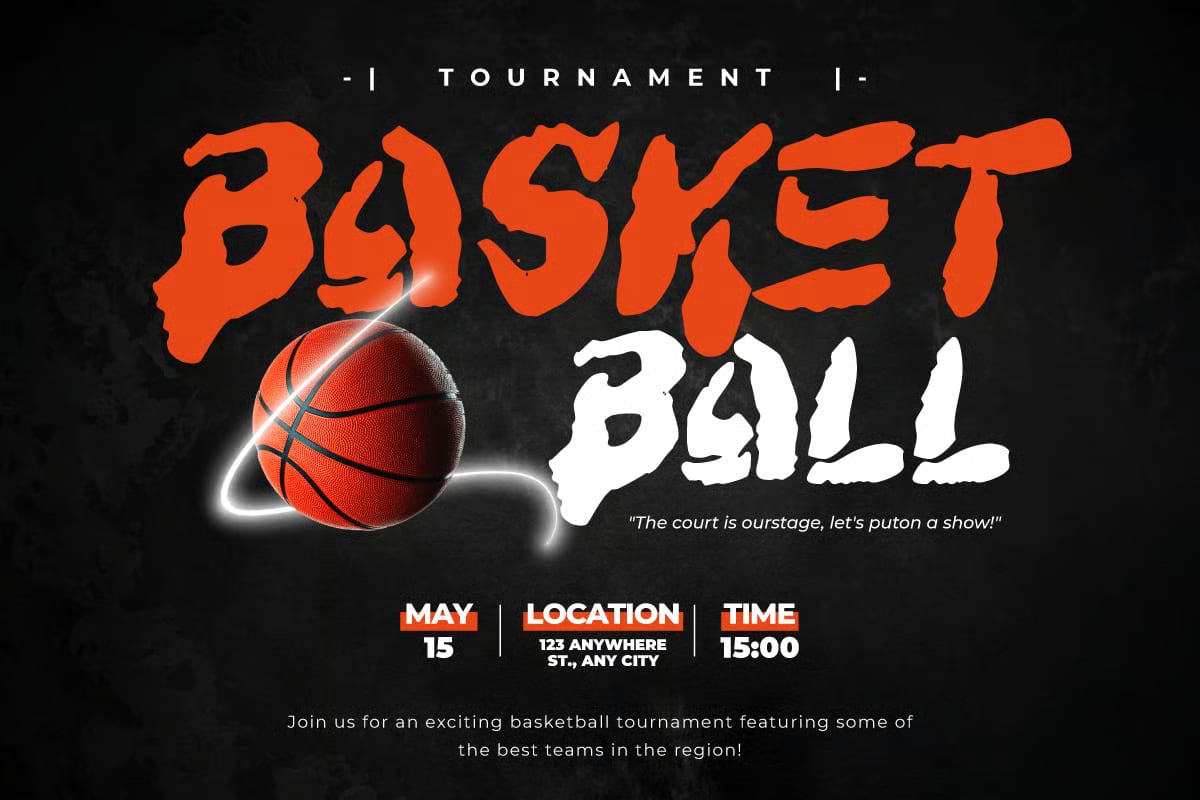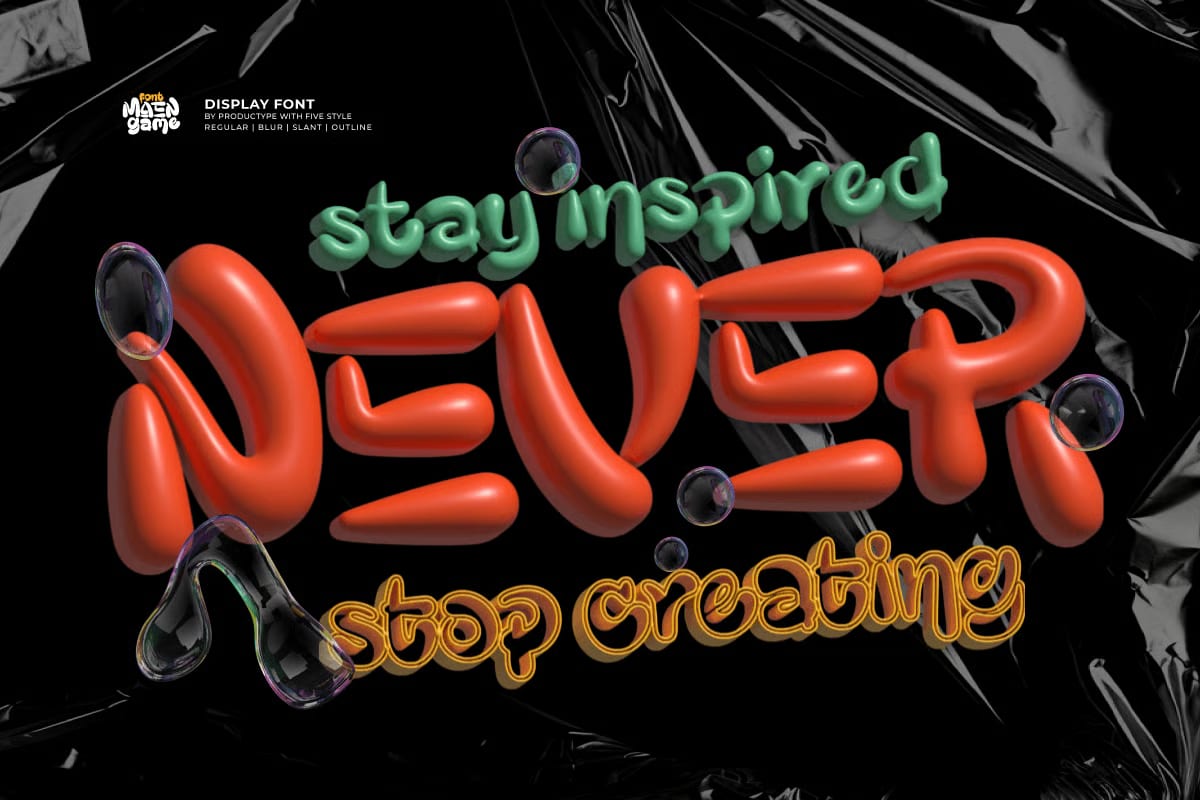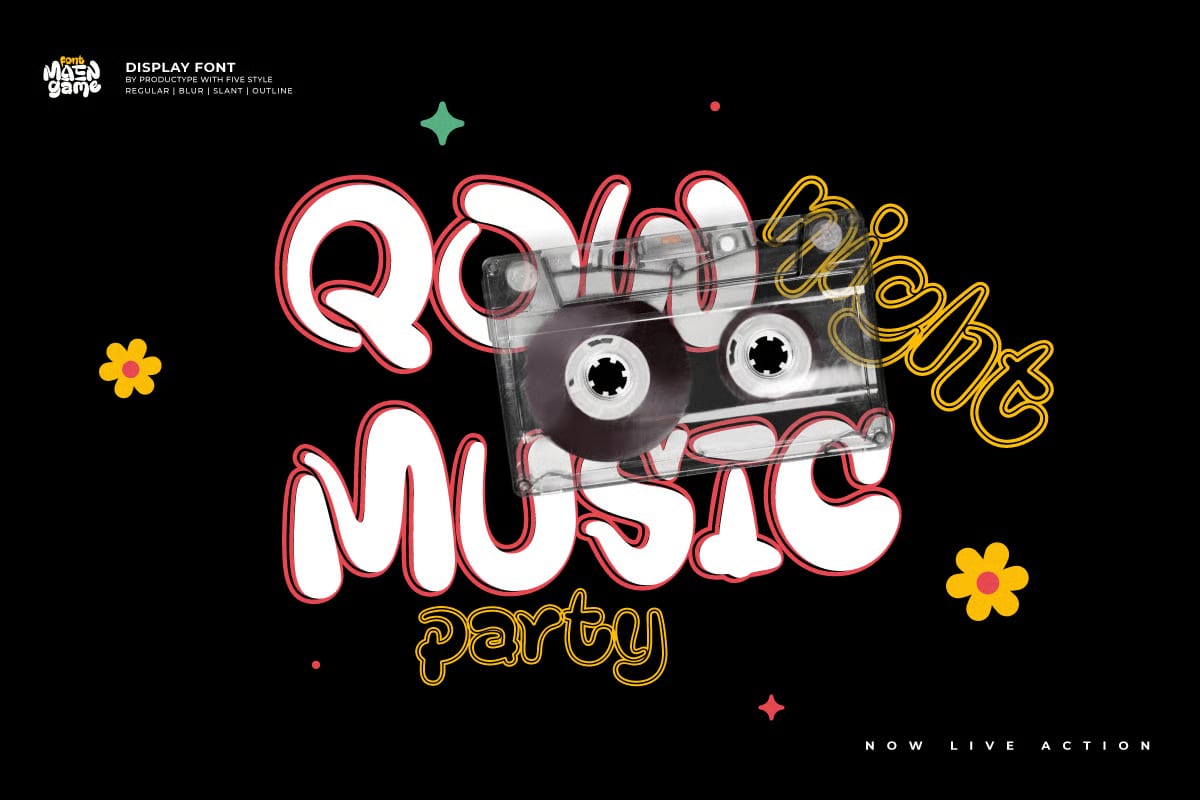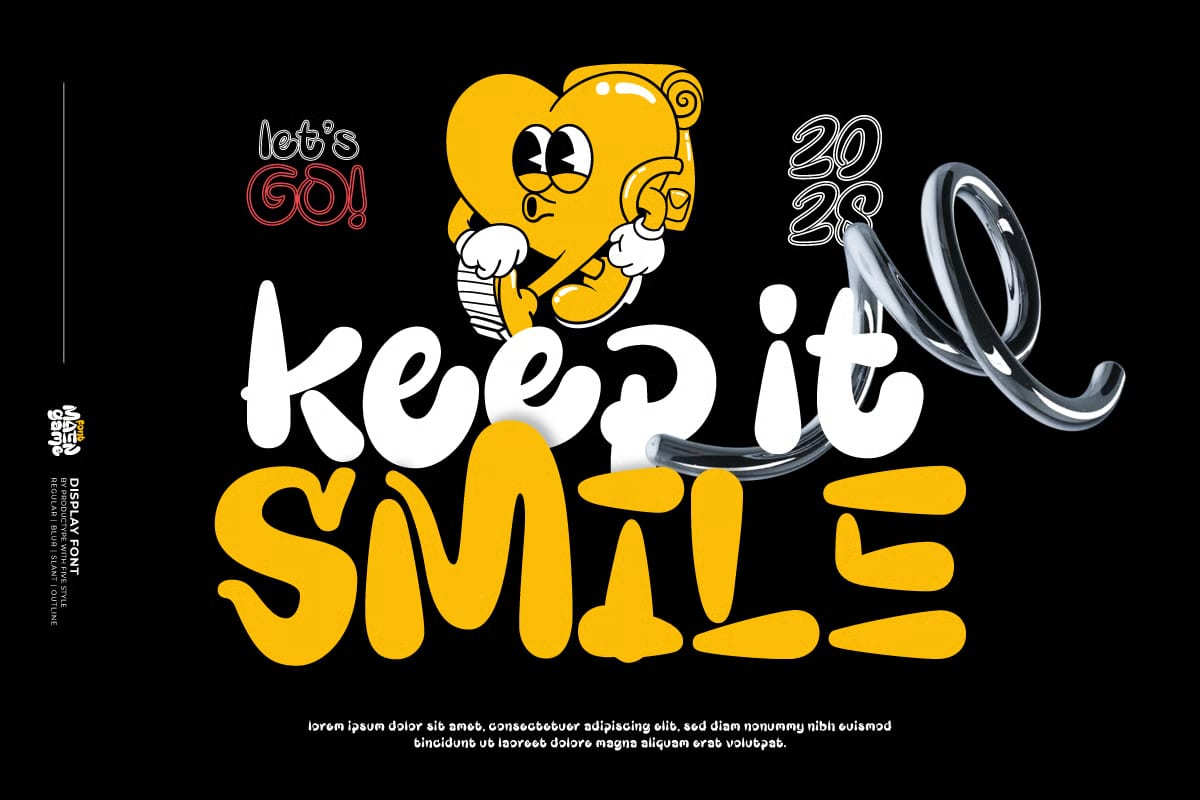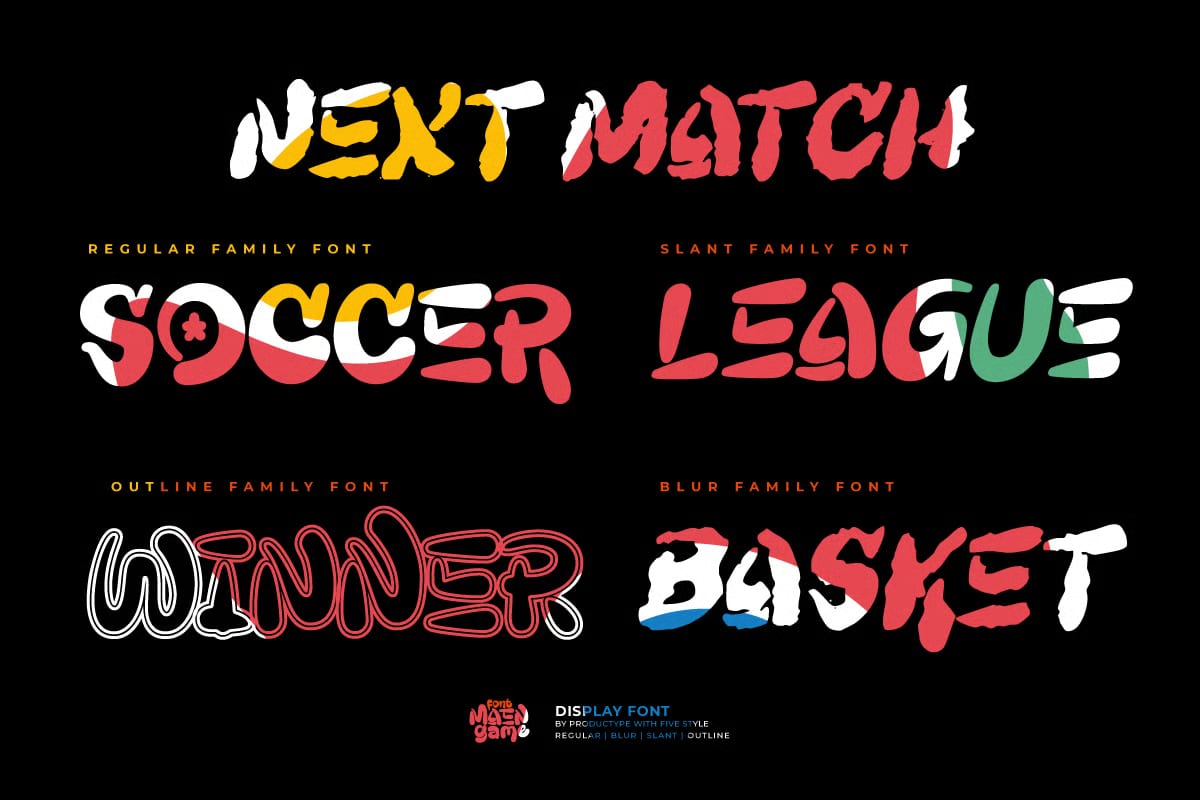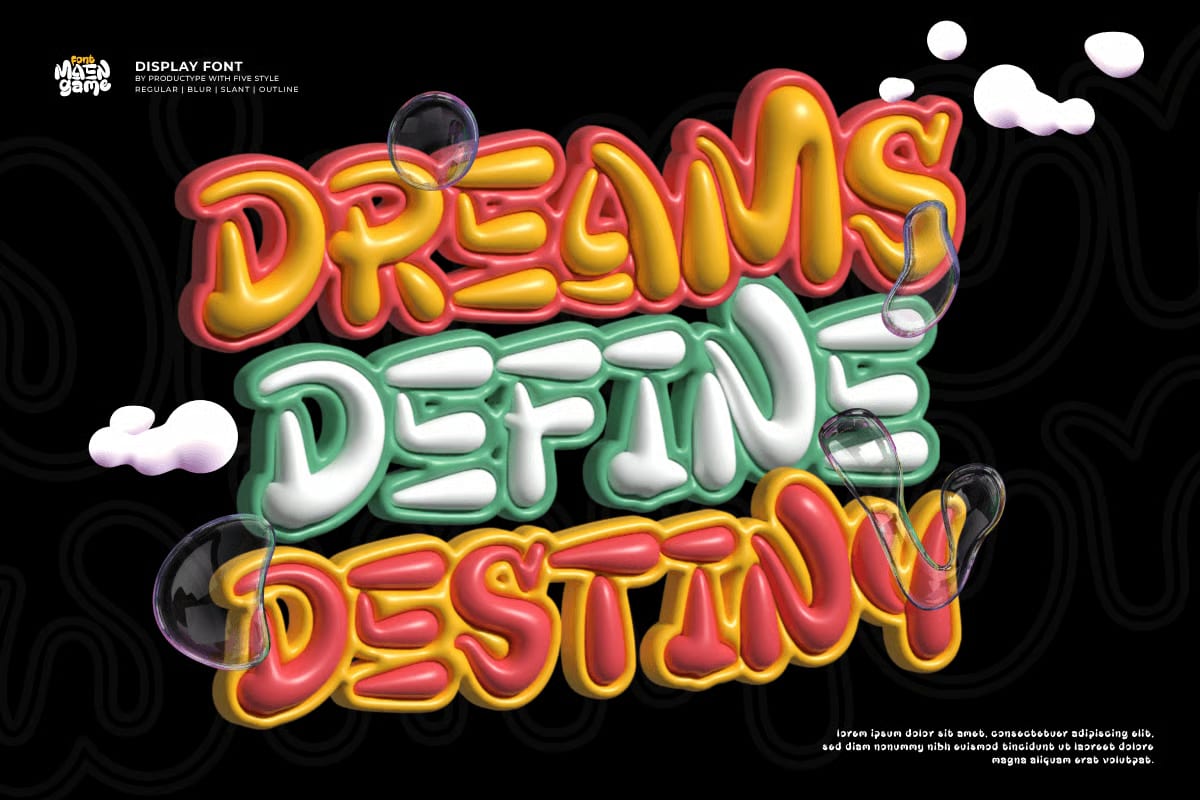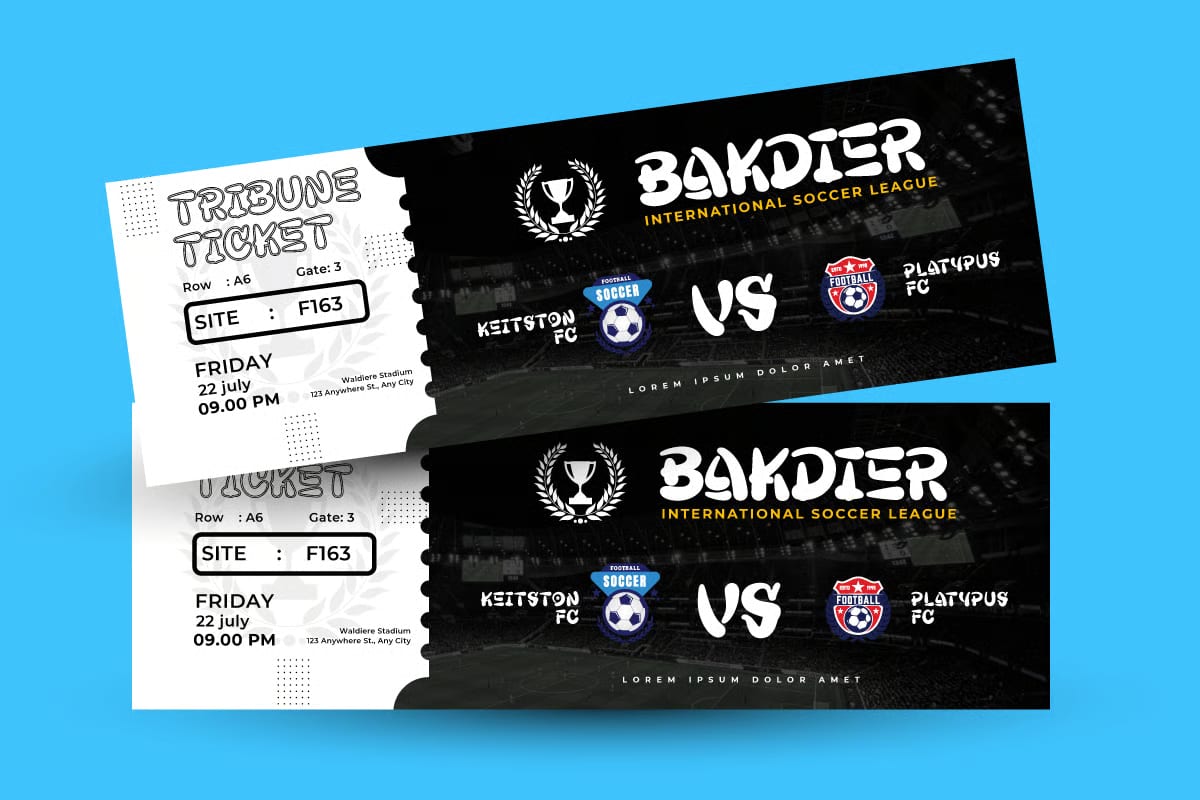
Maengame is a display font with a playful game-inspired look that adds energy and personality to a design. It has a bold sans-serif style with rounded, bubble-like letterforms, which gives it a fun and lively feel without losing readability at larger sizes.
This font works well for projects that need a strong visual presence, such as posters, event graphics, game-related artwork, and other attention-grabbing layouts. Its style feels upbeat and expressive, making it a good fit when you want the text itself to become part of the design mood.
Maengame is made for display use, so it suits headlines and short text rather than long paragraphs. The overall look brings a mix of cheer, strength, and character, which can help your designs stand out in a simple but memorable way.